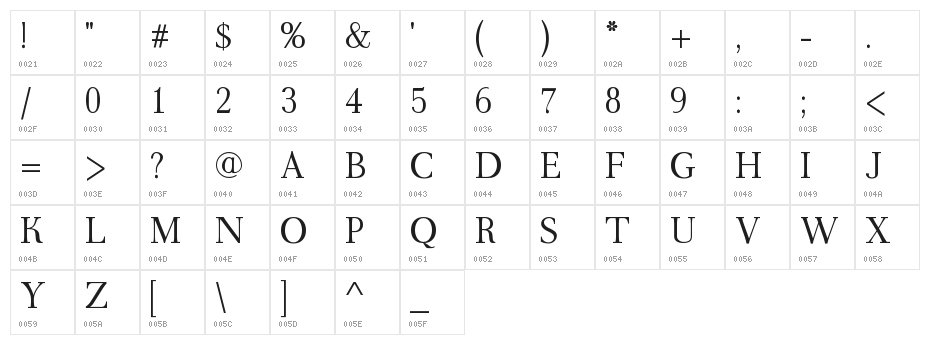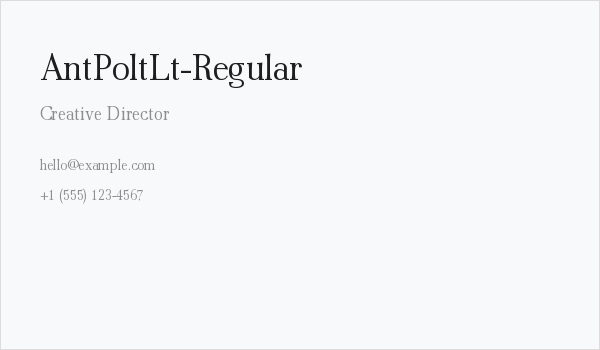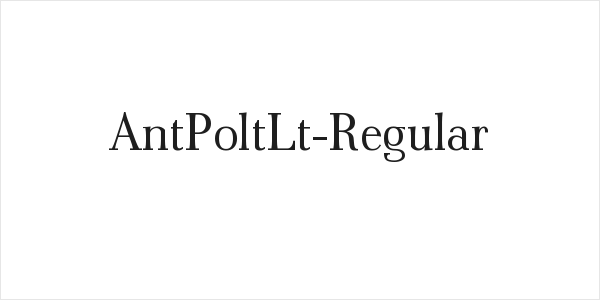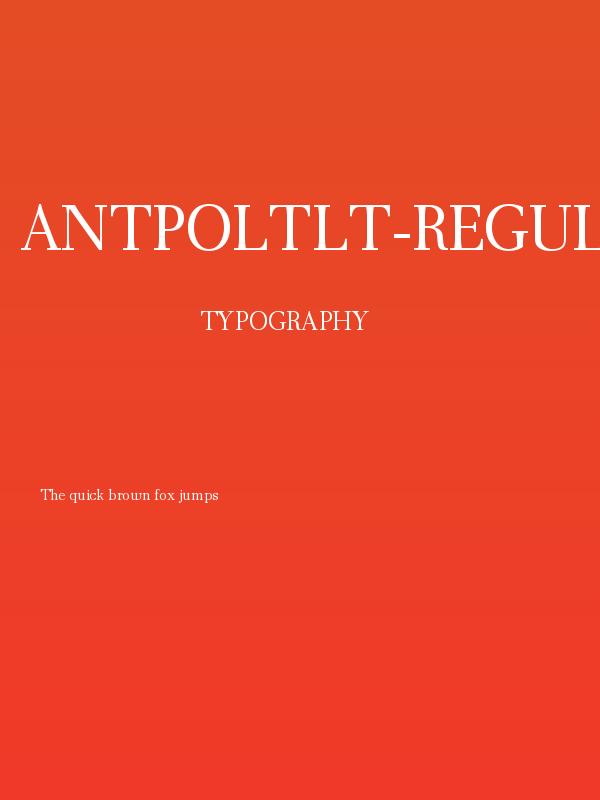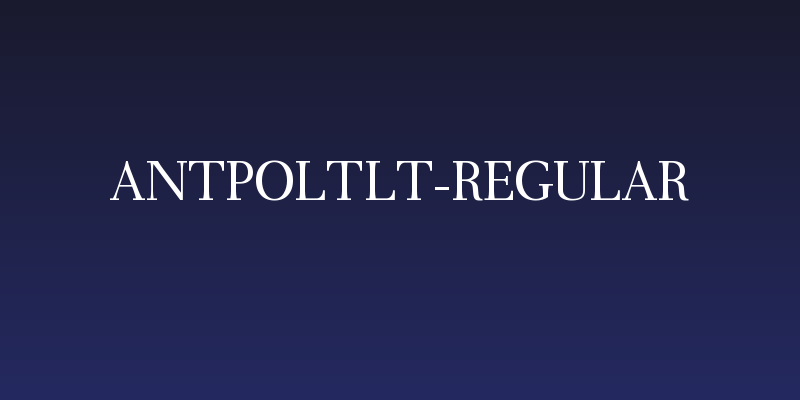
AntPoltLt-Regular Font
AntPoltLt-Regular Description
This font features a classic serif style with elegant and refined strokes. The uppercase letters are bold and commanding, while the lowercase letters maintain a balanced and readable form. The numerals are clear and distinct, making them suitable for both formal and informal contexts. Special characters are well-integrated, maintaining the overall aesthetic of the typeface. The font's design is versatile, making it suitable for a wide range of applications, from editorial design to branding.
| Proposed Projects | Ideal for editorial design, book covers, branding, and formal invitations. |